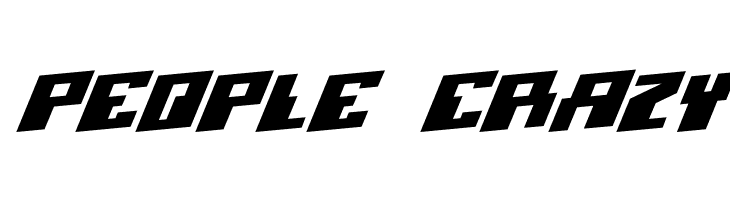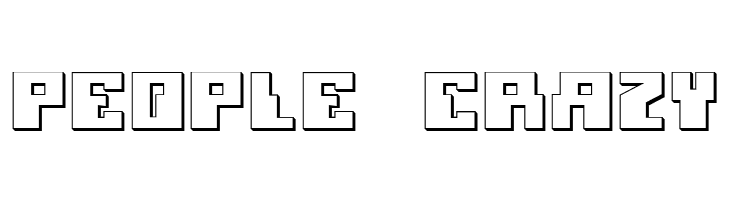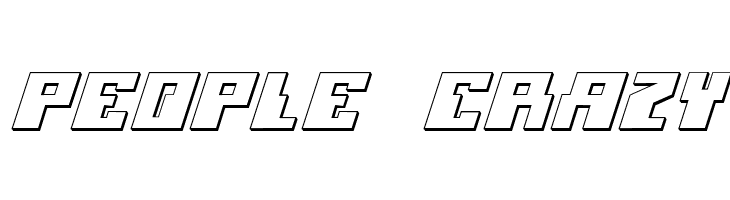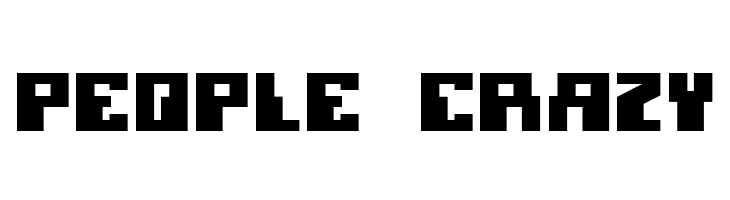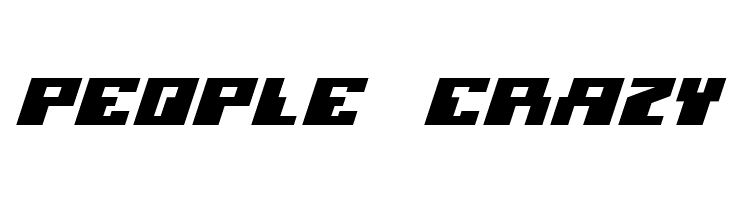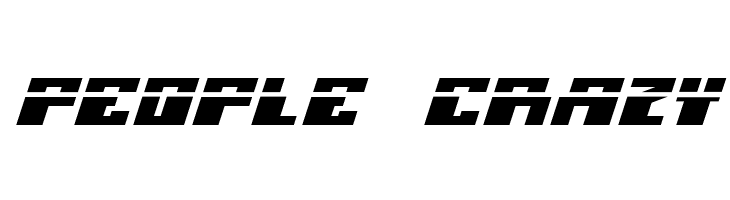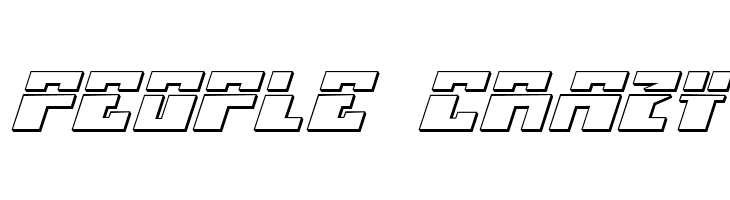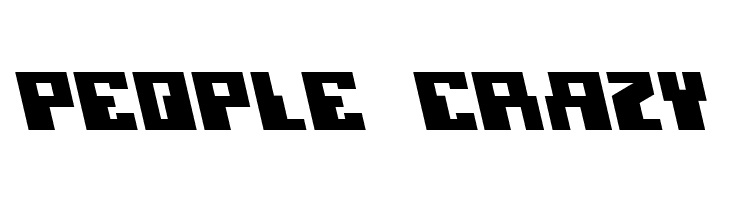
Tapedeck Regular Font
A bold, angular, and futuristic font with a dynamic slant.
A bold, 3D geometric font with a futuristic and structured appearance.
A bold, 3D italic font with a geometric and futuristic style.
A bold, geometric font with a modern, digital aesthetic.
A bold, expanded, and italicized font with a futuristic and angular design.
A futuristic, bold, and expanded italic font with sharp geometric angles.
A futuristic, 3D italic font with bold outlines and geometric shapes.
A bold, angular font with a futuristic and geometric design.